Craft timeless lettering for your big day
AI-powered wedding invitation font generator to design, customize, and download elegant wedding invitation fonts in minutes.
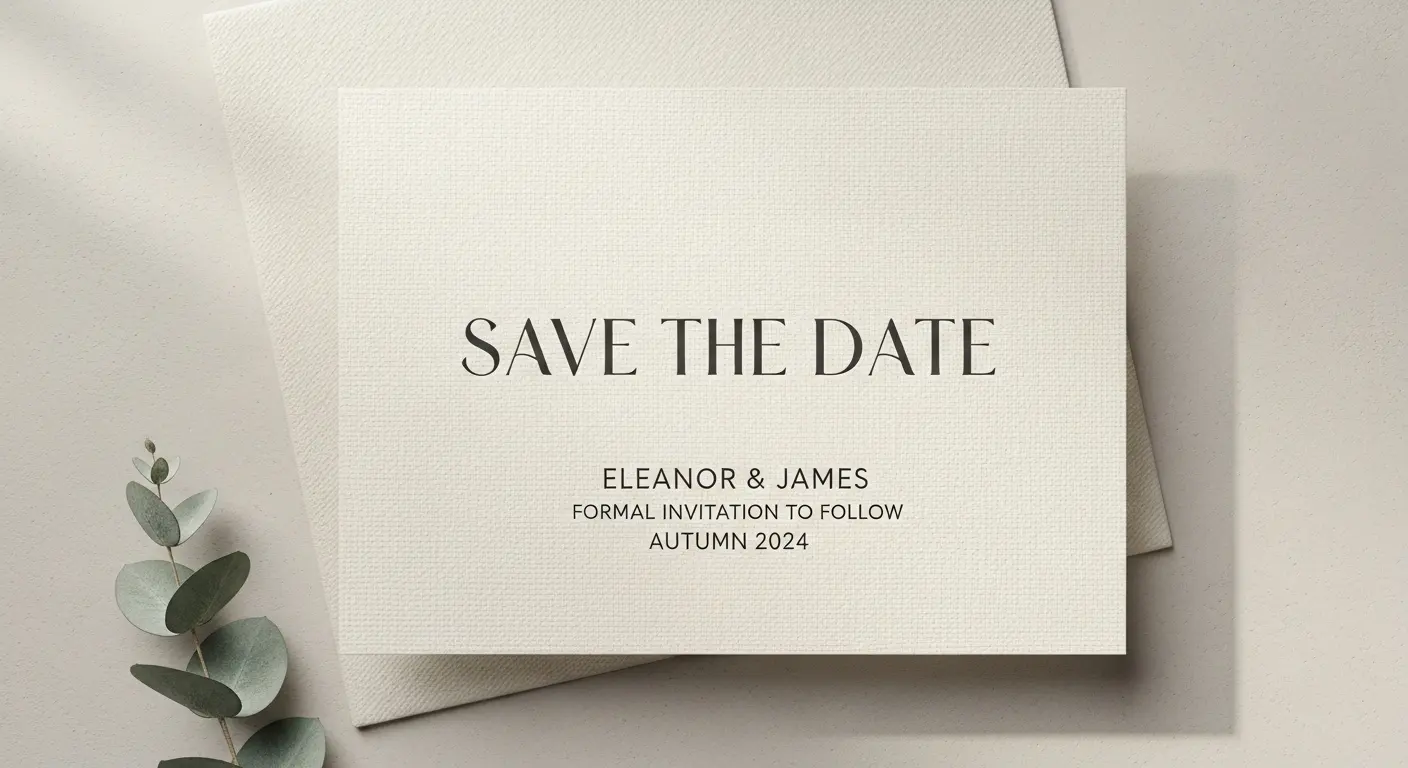
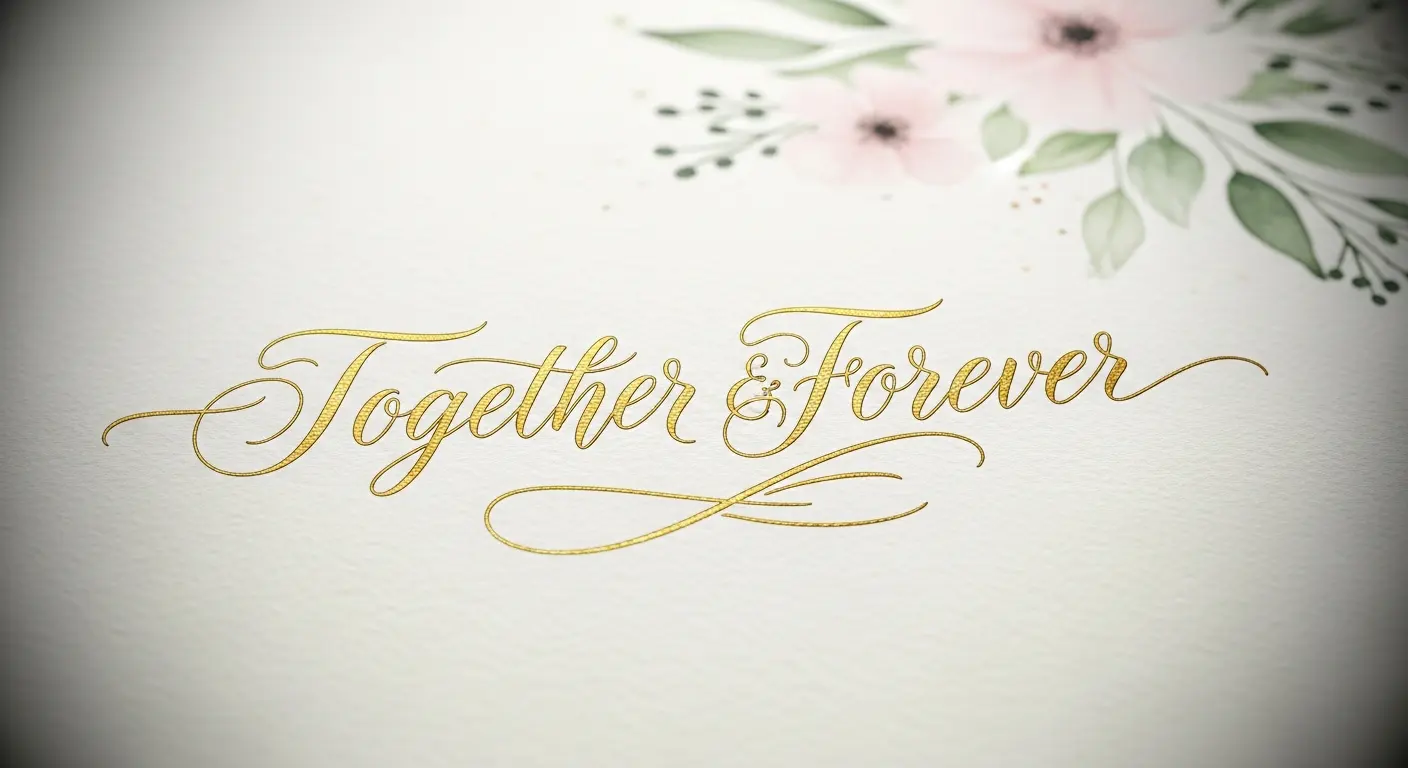
Bring your ideas to life with beautifully crafted wedding invitation fonts that match classic and modern themes. Our AI Wedding Invitation Font Generator makes it effortless to explore, customize, and download unique wedding invitation font styles for invites, RSVPs, and signage.
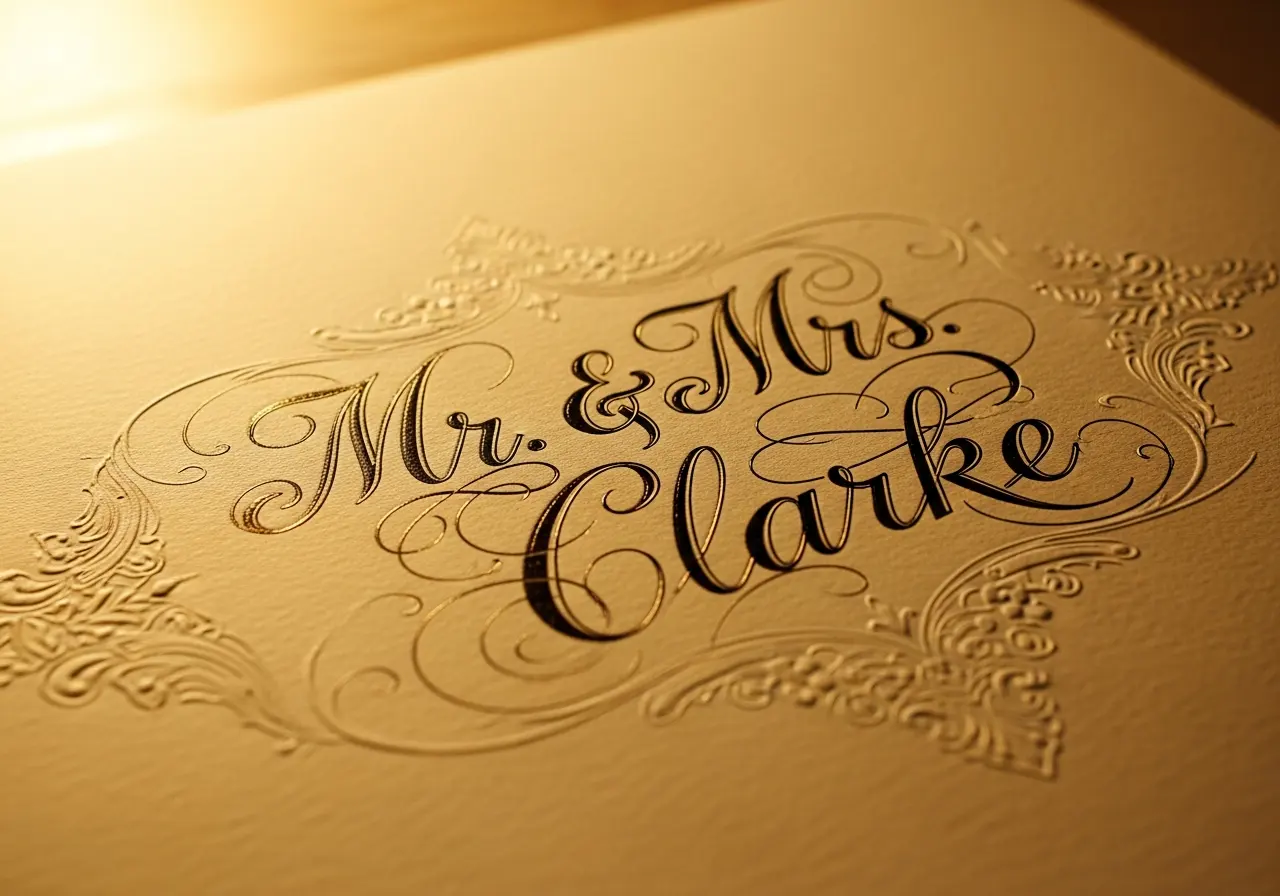
A refined copperplate calligraphy style with thin hairlines and bold contrast ideal for formal wedding invitation font design. Perfect for traditional weddings, formal invites, place cards, and elegant signage that demand a timeless, luxurious feel.
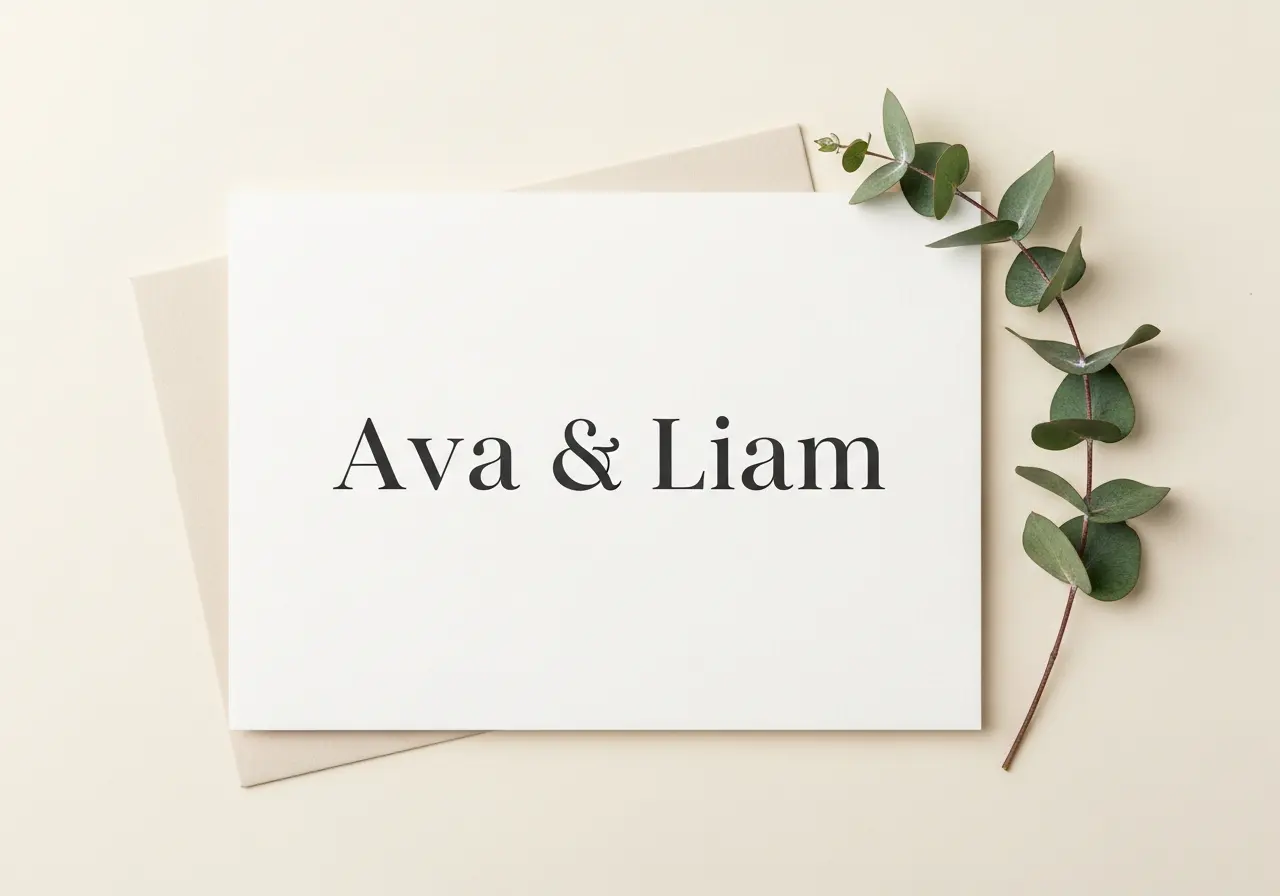
A contemporary serif with clean lines and refined spacing for a minimalist wedding invitation font style. Best for modern venues, sleek save-the-dates, and wedding websites where clarity and understated elegance are key.
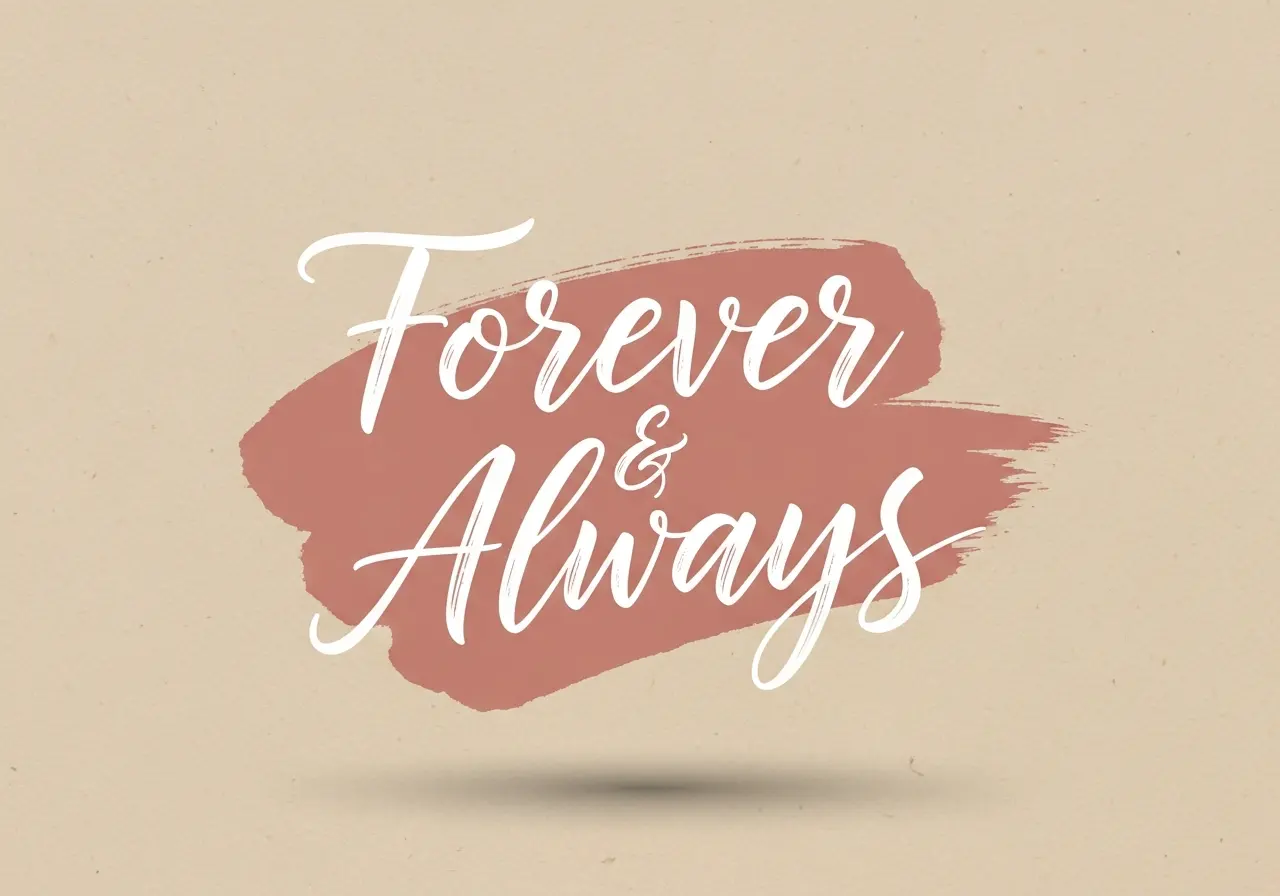
An elegant, romantic script ideal for wedding invitations—delicate strokes with refined swashes and high readability. Balances classic calligraphy with modern clarity for print and digital invites.
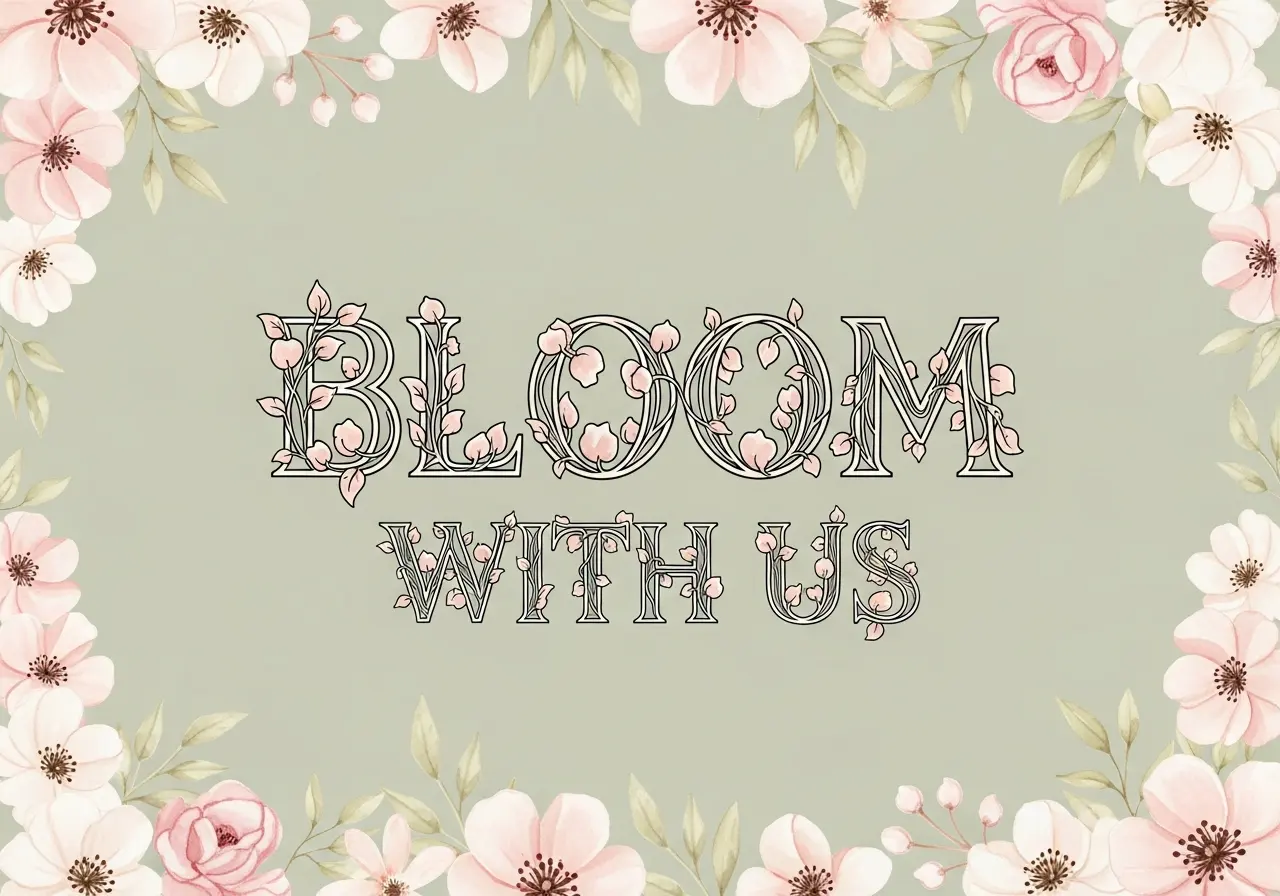
A decorative display font integrating floral motifs into letterforms for a botanical wedding invitation font style. Great for floral-themed stationery, garden weddings, and decorative signage where the font becomes a central design element.
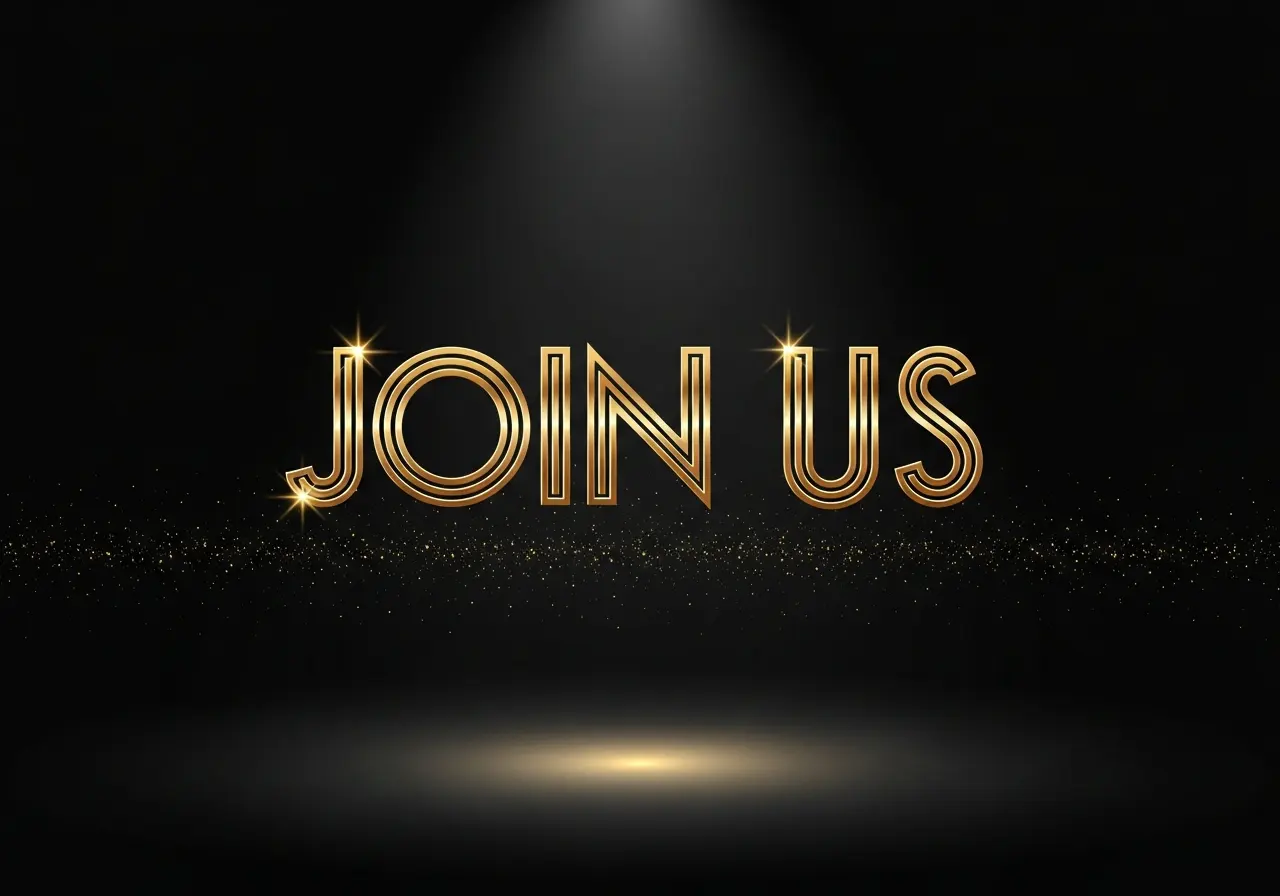
An art-deco inspired display font with geometric forms and decorative lines. This wedding invitation font style suits Gatsby-themed or vintage weddings, striking on posters, formal invitations, and ceremony programs.
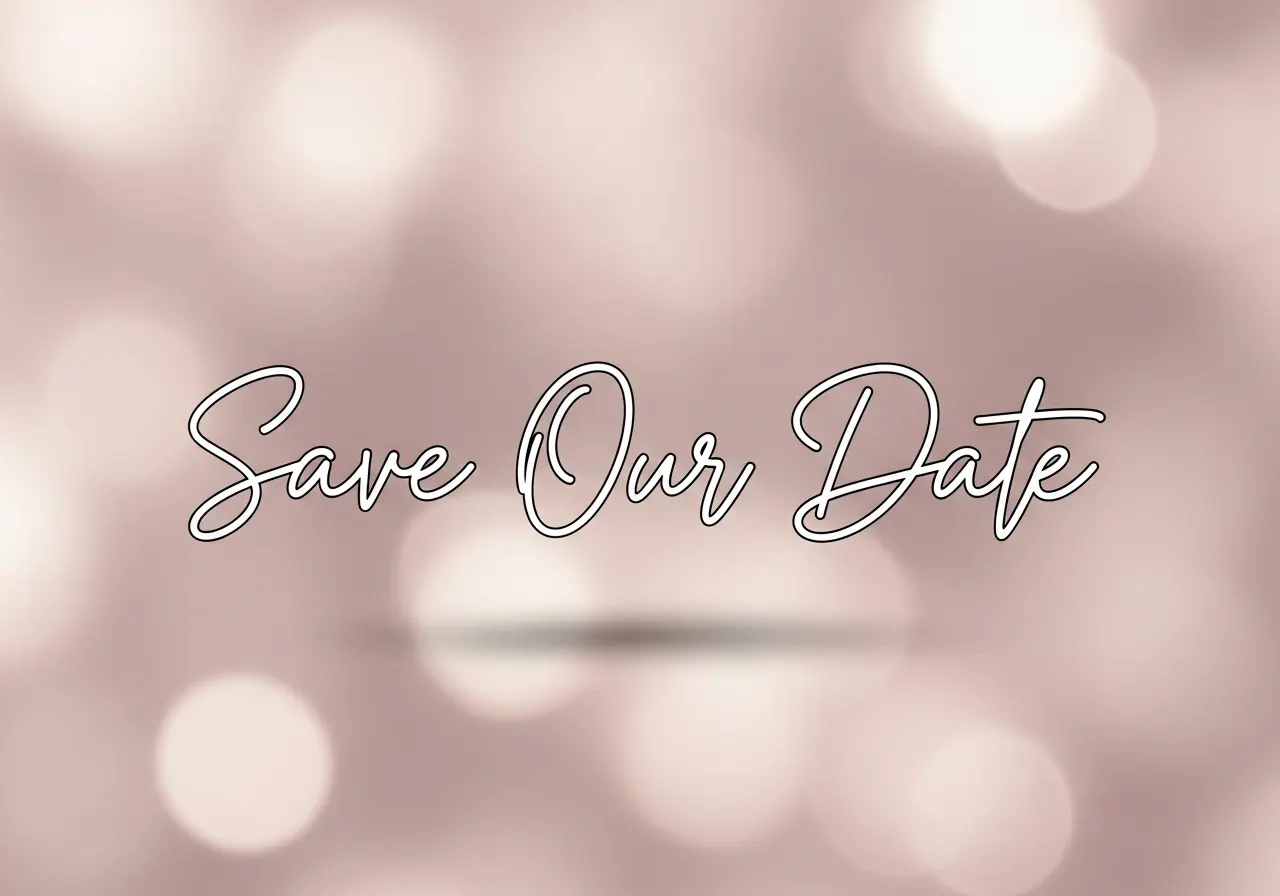
A smooth monoline script with consistent stroke width and elegant ligatures. This wedding invitation font style works well for modern-romantic designs, digital invites, and elegant overlays on photos for announcements.
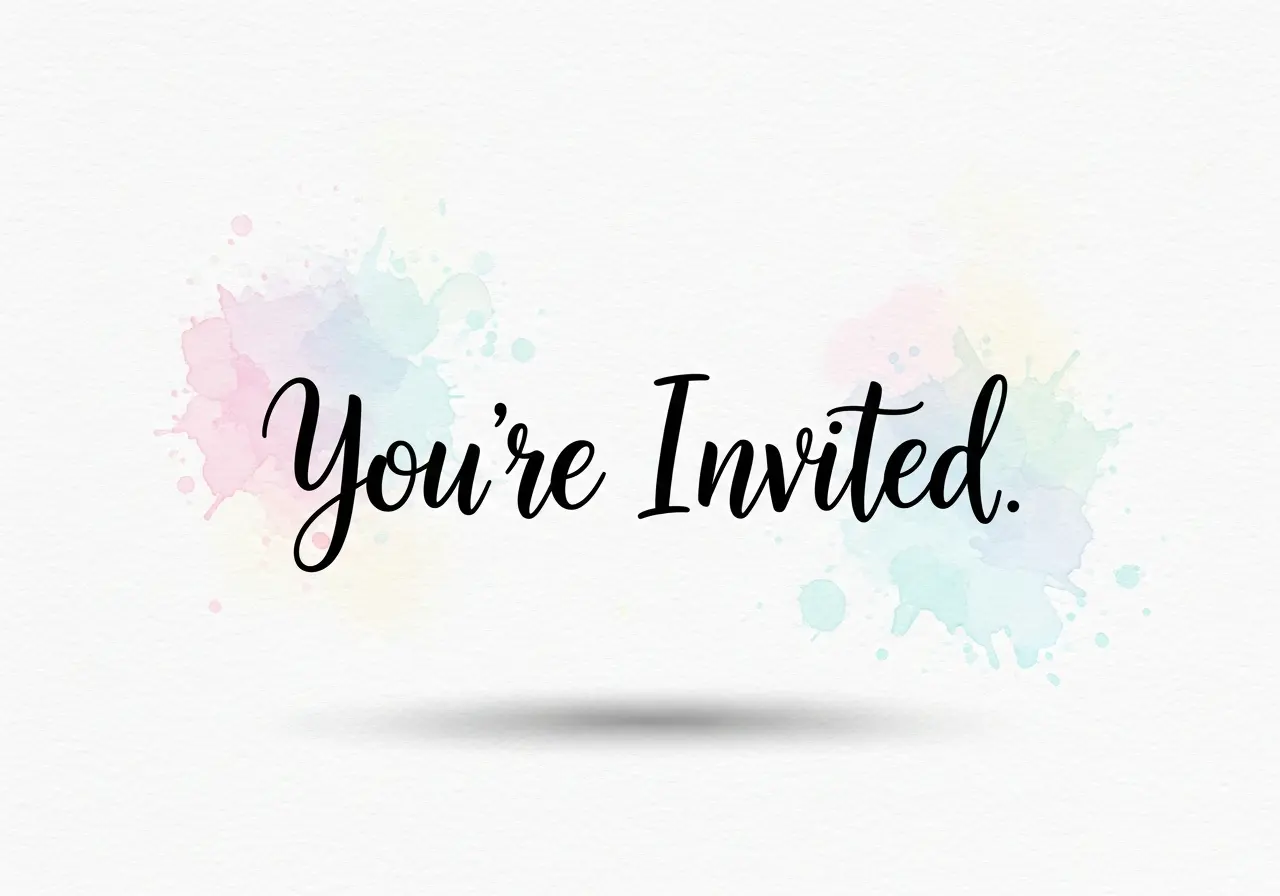
A relaxed handwritten script with organic loops and friendly rhythm. Use this wedding invitation font style for casual or backyard weddings, invitation inserts, thank-you cards, and social media posts that feel personal and intimate.
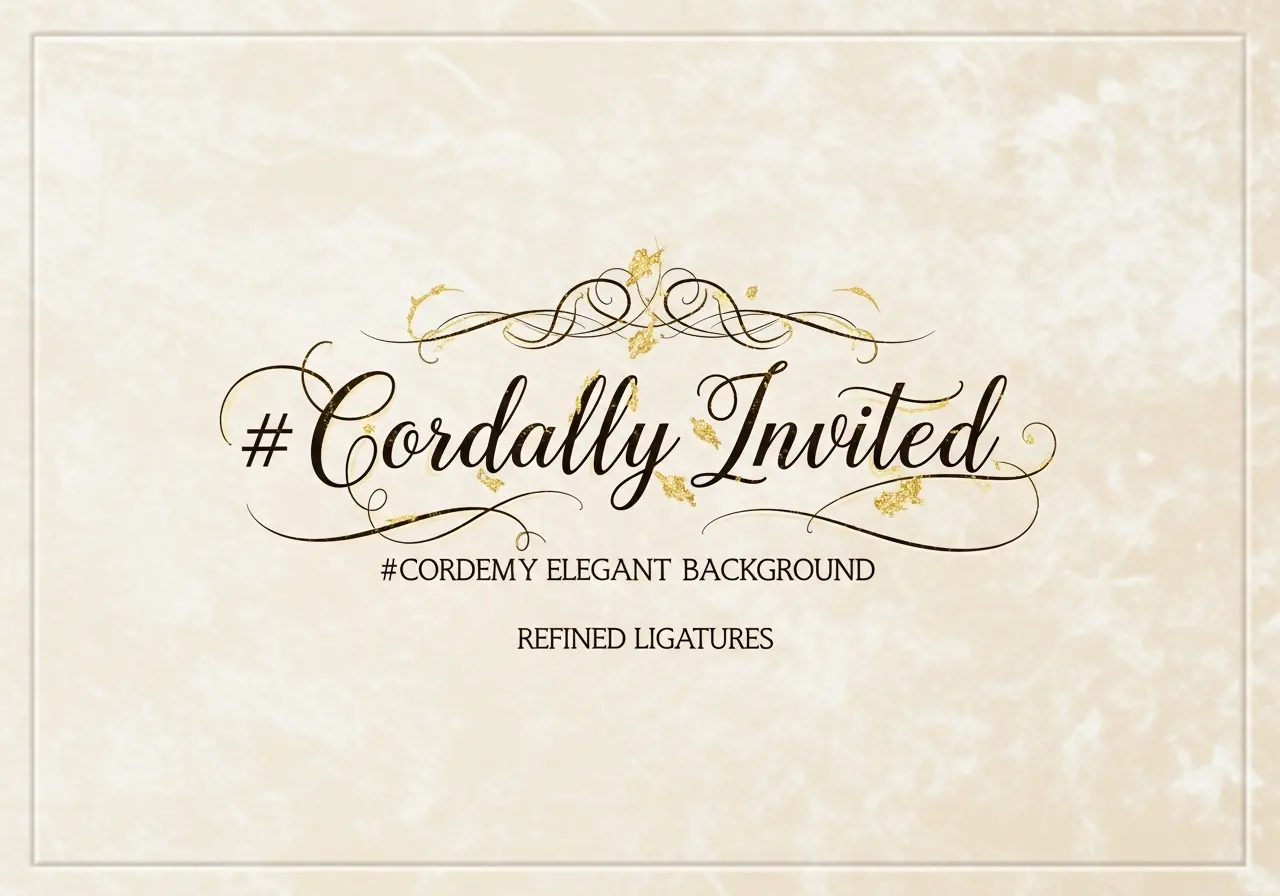
A luxurious script that emphasizes sophisticated ligatures and sweeping capitals. Use this wedding invitation font style for high-end stationery, invitations, and programs where ornate typography elevates the design.
A playful decorative sans with tiny embellishments and rounded corners for a charming wedding invitation font style. Perfect for casual invites, kids’ table cards, and informal stationery with a joyful tone.
Bold hand-lettered block capitals with slight texture for a contemporary rustic wedding invitation font style. Ideal for signage, welcome boards, menus, and invitations that need clear hierarchy and handcrafted charm.